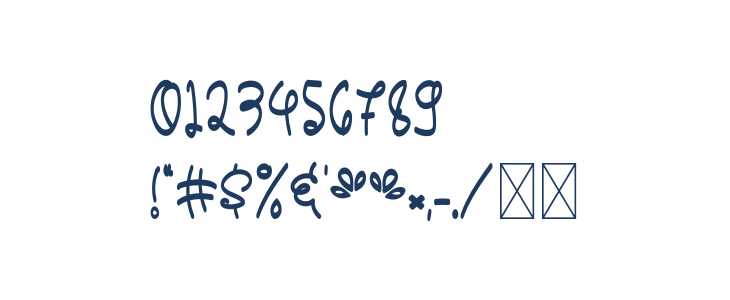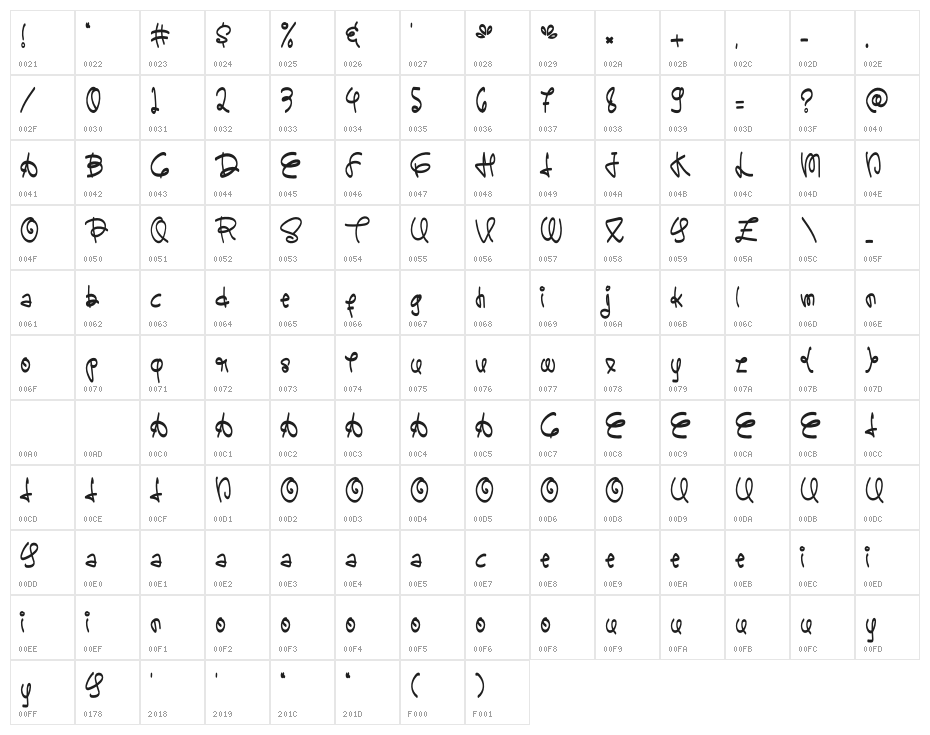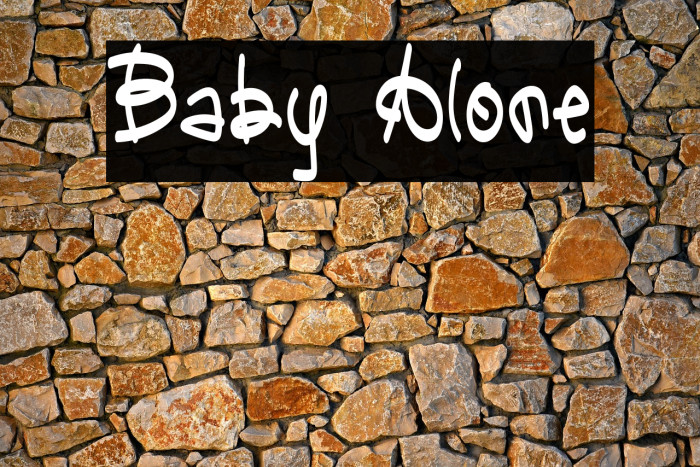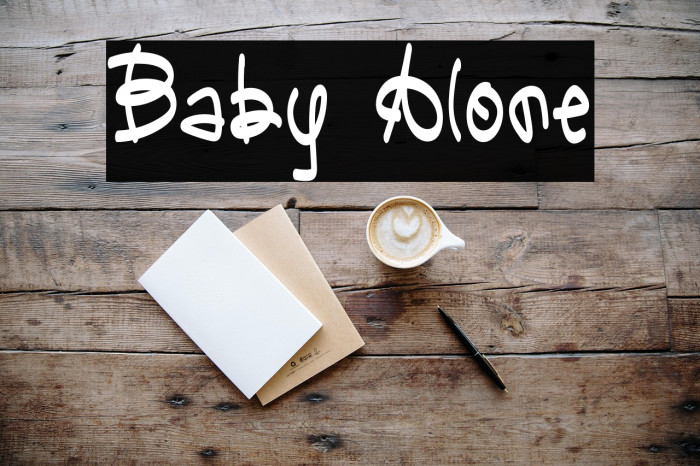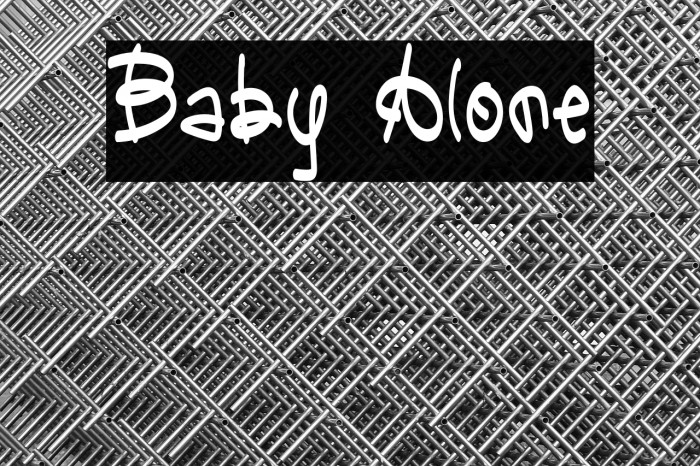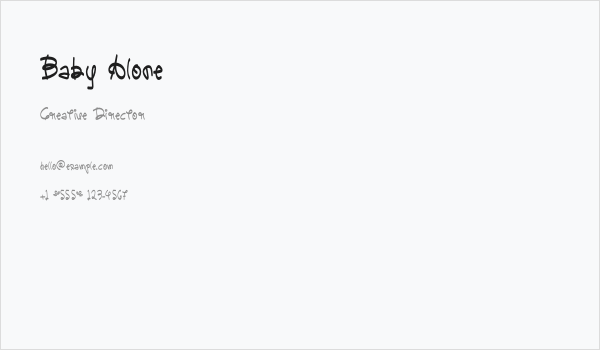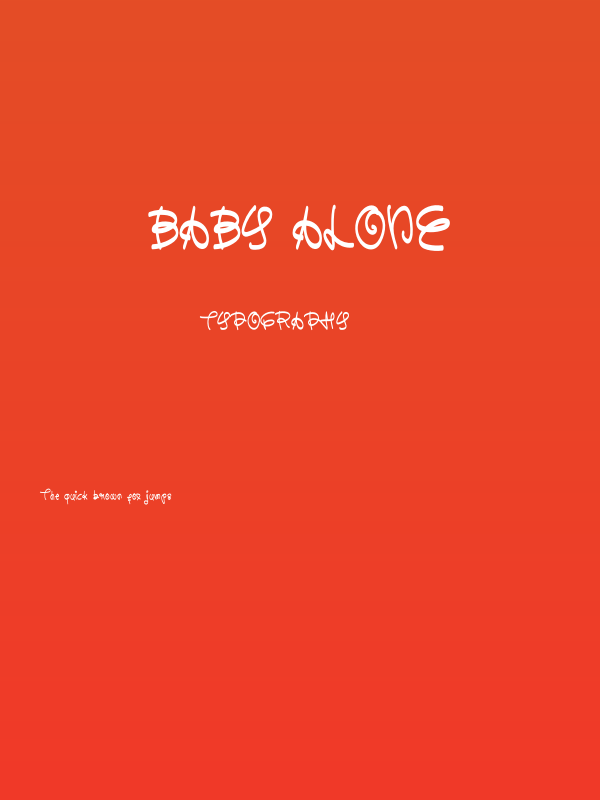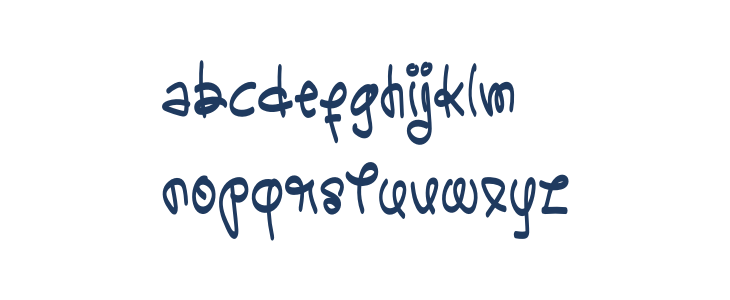
Baby Alone Font
| Gesamtstil | Whimsical |
| Anwendungsfall | Logos, Headlines, Informal Text |
| Vorgeschlagene Projekte | Ideal for children's books, playful branding, greeting cards, and informal invitations. |